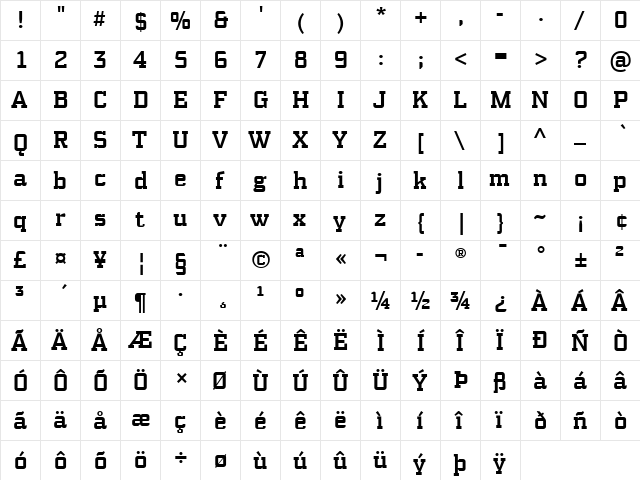
PF Synch Pro Medium
| Designer | Panos Vassiliou |
Design Context for PF Synch Pro Typeface
PF Synch Pro takes a measured approach to typography — its balanced proportions and neutral character make it a reliable workhorse for both digital and print work.